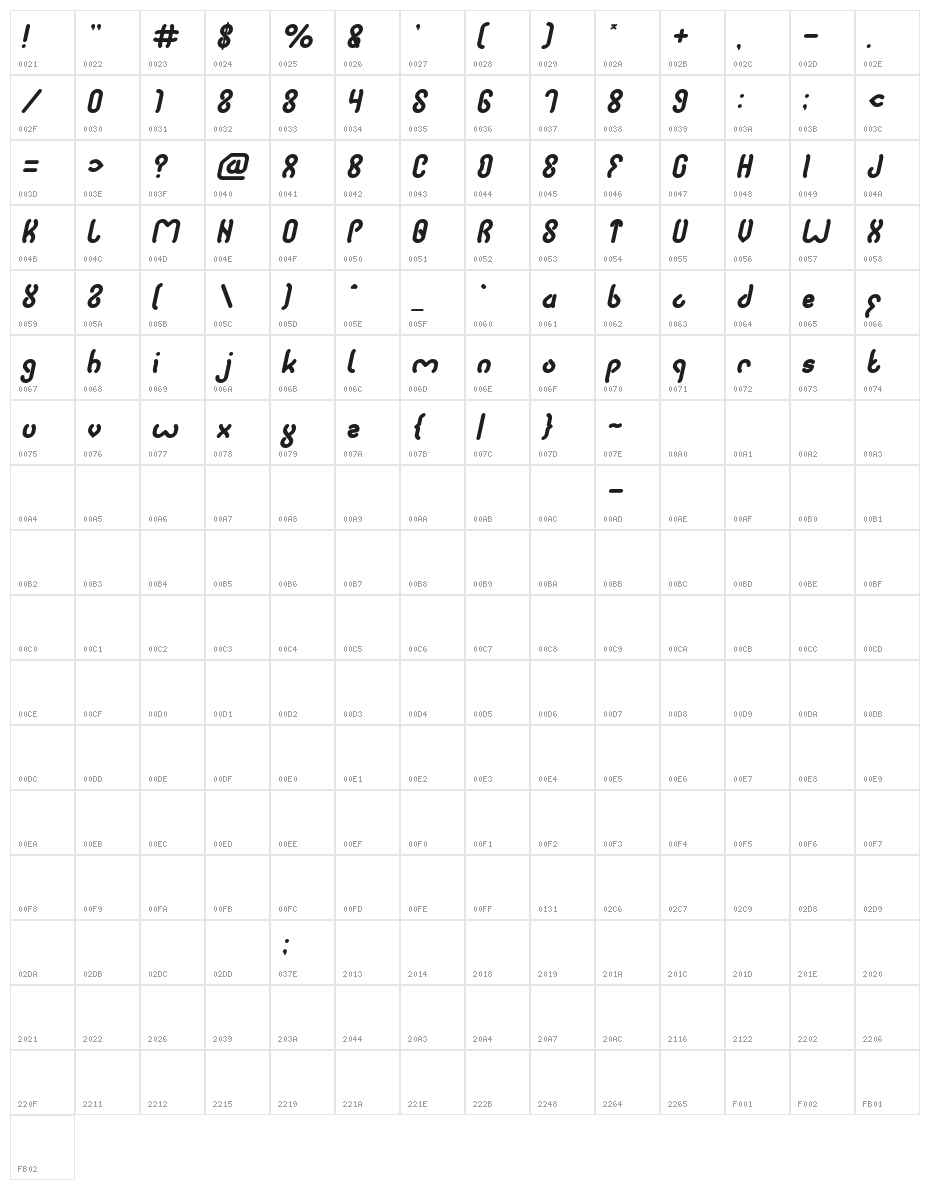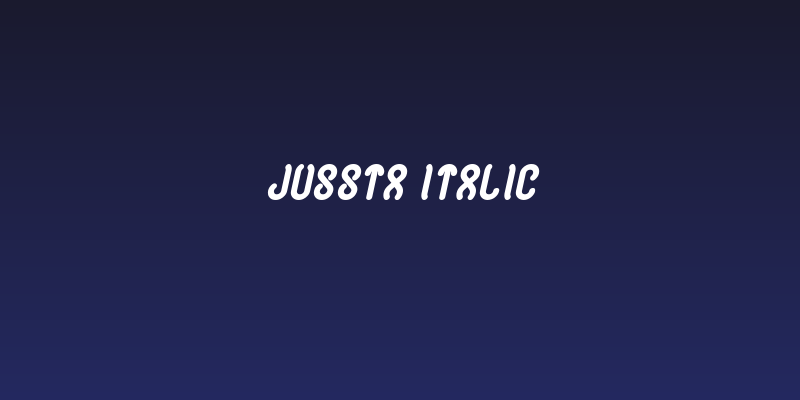
JUSSTA Italic Font
JUSSTA Italic Description
This font features a bold and playful design with a handwritten style. The characters are rounded and slightly slanted, giving it an informal and dynamic appearance. The strokes are thick and consistent, providing a strong visual impact. The uppercase and lowercase letters maintain a cohesive look, while the numbers and special characters integrate seamlessly with the overall style. The font's unique curves and loops add a touch of creativity, making it suitable for projects that require a fun and engaging aesthetic.
| Overall Style | Playful, Creative |
| Use Case | Logos, Posters, Greeting Cards |
| Proposed Projects | Ideal for children's books, playful branding, greeting cards, and creative posters. |